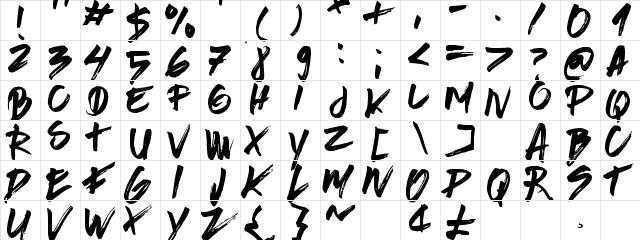
Brushed Traveler Regular
| Designer | Leonard Posavec |
Design Context for Brushed Traveler Typeface
Brushed Traveler flows with the natural rhythm of handwritten lettering, making it ideal for designs that call for warmth and personal expression.
Font Pairing: Combine Brushed Traveler with a simple geometric sans for maximum contrast — the tension between flowing curves and clean structure is a classic typographic pairing.
Pro Tip: Use Brushed Traveler for short runs of text — names, titles, or taglines. Extended body copy in script faces tires the eye quickly.